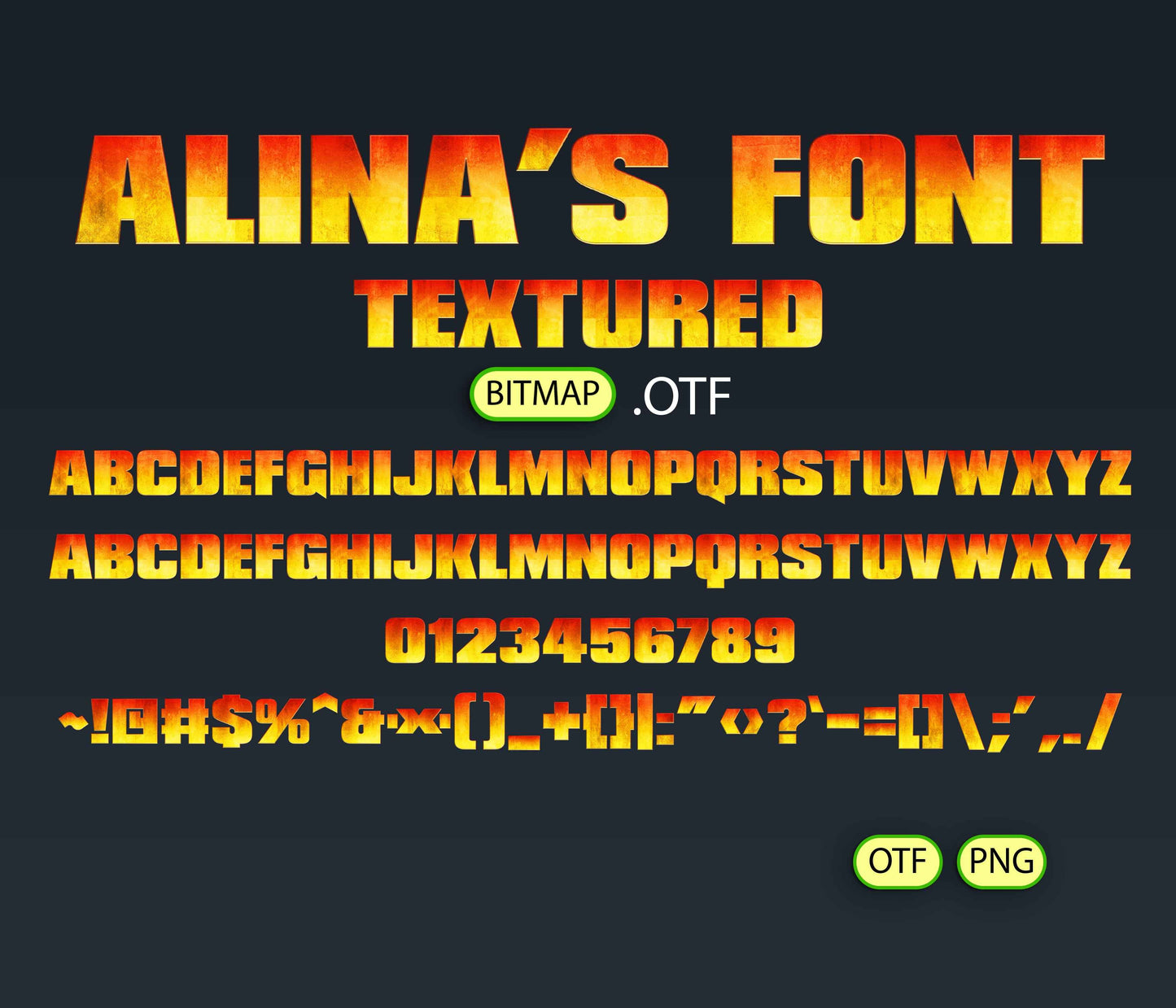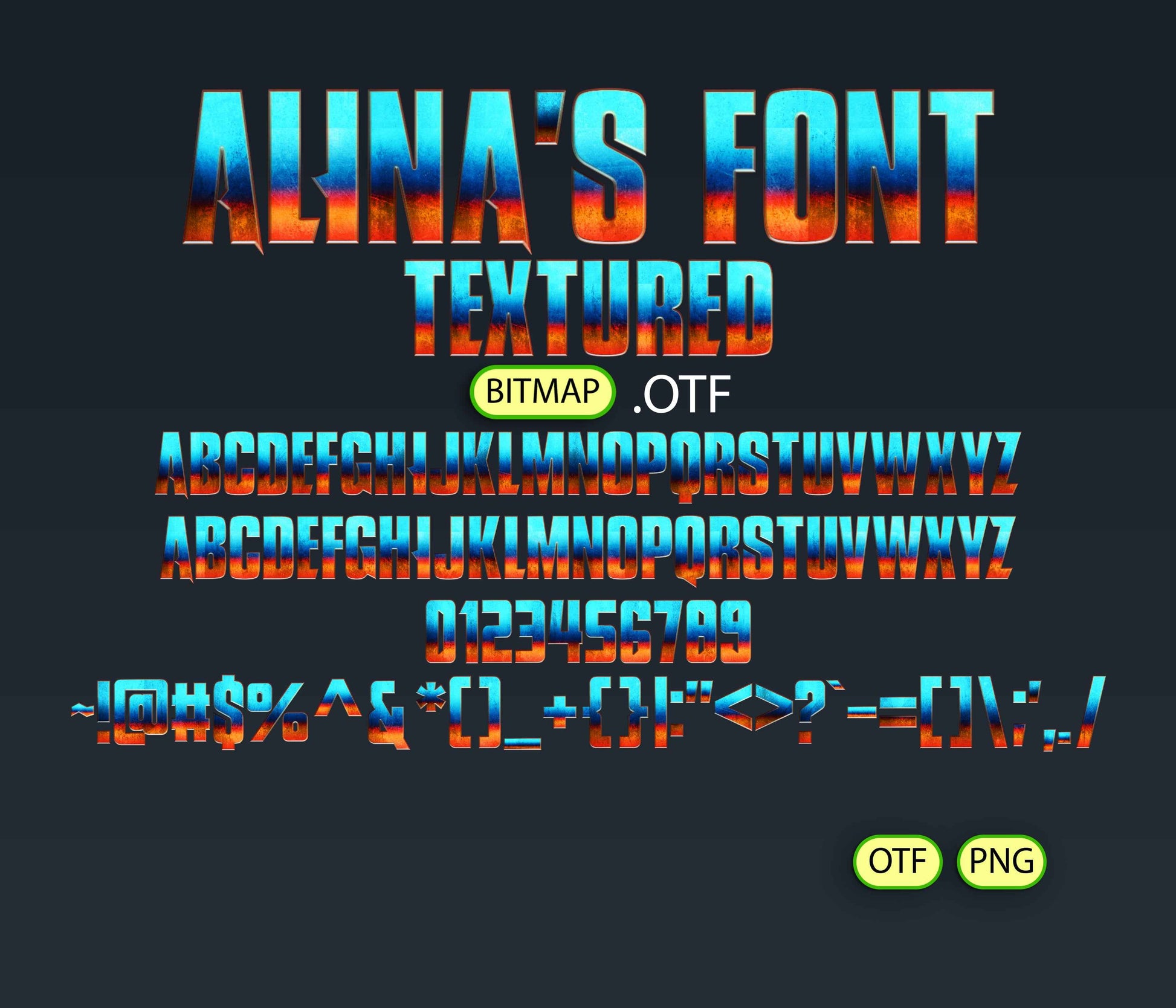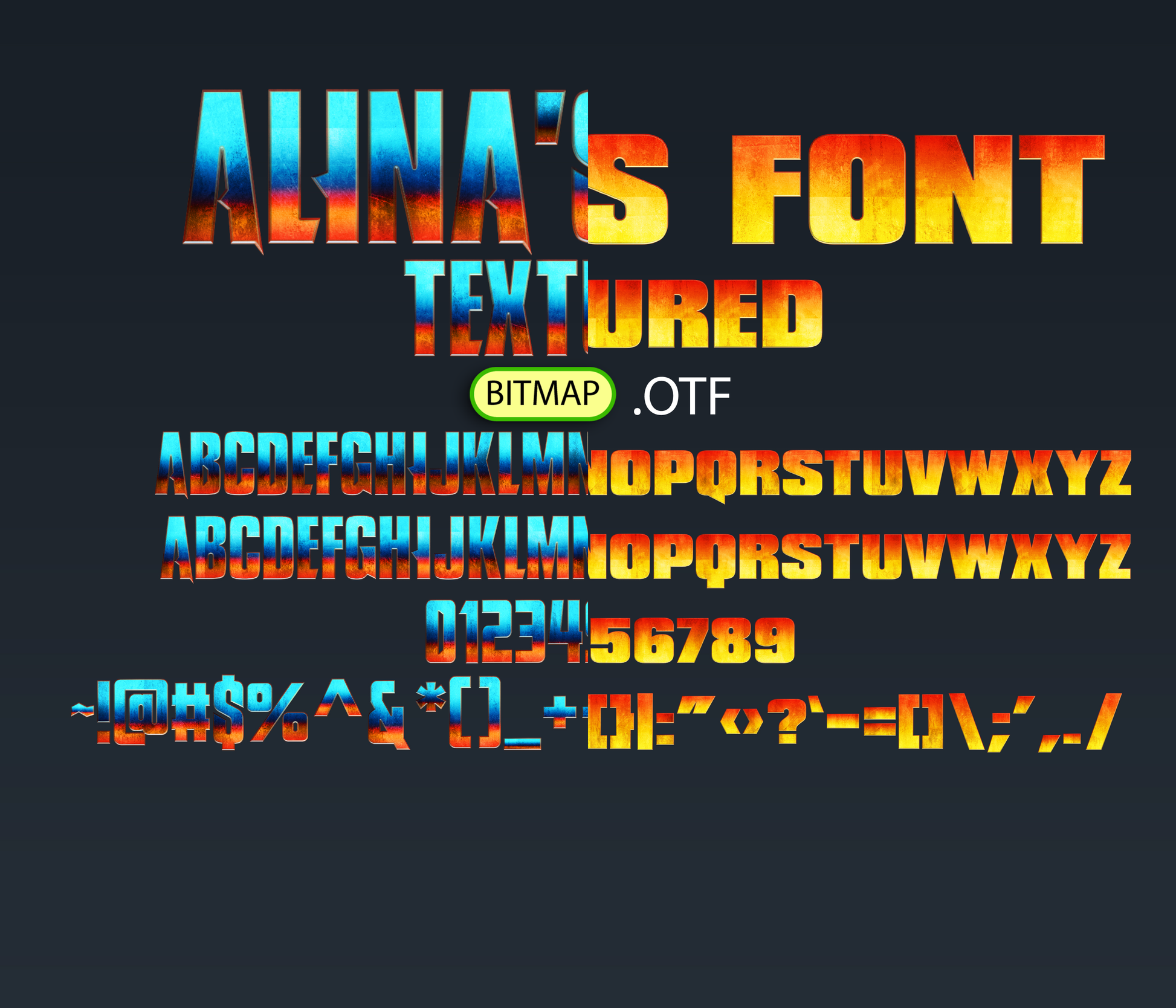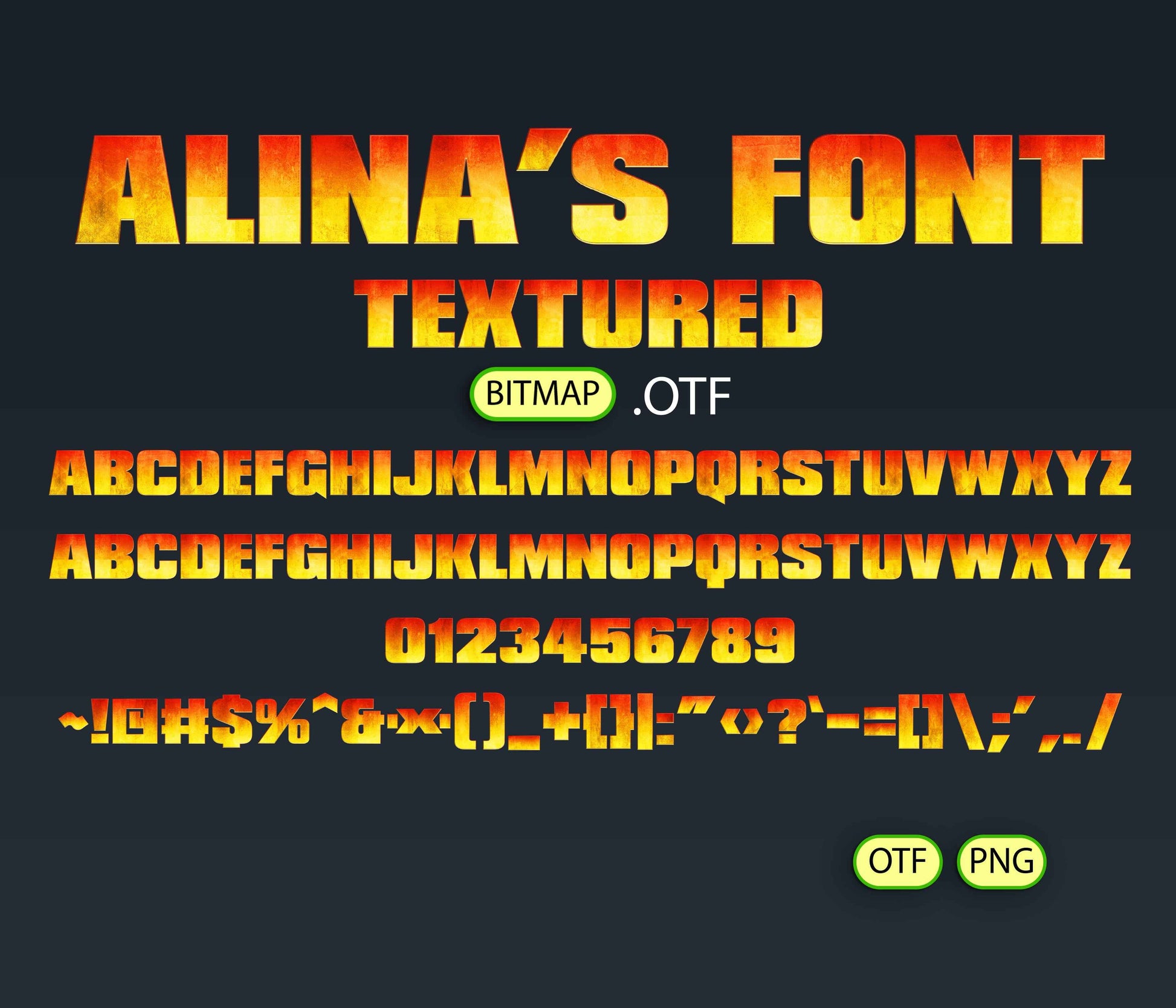
Titan Clash Font Textured Bundle
Titan Clash Font: Inspired by the Legendary Showdown
Unleash the epic clash of legends with our Titan Clash font, inspired by the King of Monsters and the Ruler of Skull Island. This font captures the raw power and awe-inspiring presence of these iconic behemoths. Perfect for fans and creators, this font is a tribute to their thrilling battles and breathtaking visuals.
What is the Titan Clash Font?
This font captures the essence of the epic confrontation, with bold, imposing letters and rugged strokes reflecting the primal strength of these titans. It evokes the intensity and dynamic energy of their battles, perfect for conveying strength and courage.
Applications
- Movie Posters and Fan Art: Captivating visuals for epic battles.
- Merchandise Design: T-shirts, hoodies, caps, and posters.
- Event Invitations: Unique invites for screenings and themed parties.
- Social Media Campaigns: Engaging content celebrating the film.
Features
- Comprehensive Character Set: Supports diverse creative projects.
The Titan Clash font invites you to dive into the thrilling cinematic event. Whether for personal, fan creations, or merchandise, this font adds excitement and grandeur to every project.